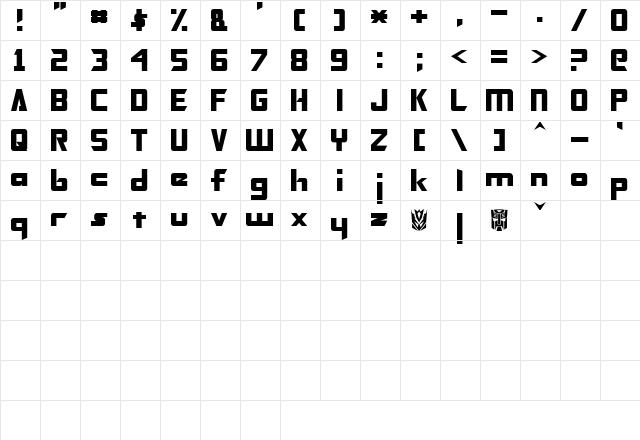
Transformers Solid Normal
Design Context for Transformers Solid Typeface
Transformers Solid is a composed and adaptable typeface that performs quietly and consistently across a wide range of design contexts.